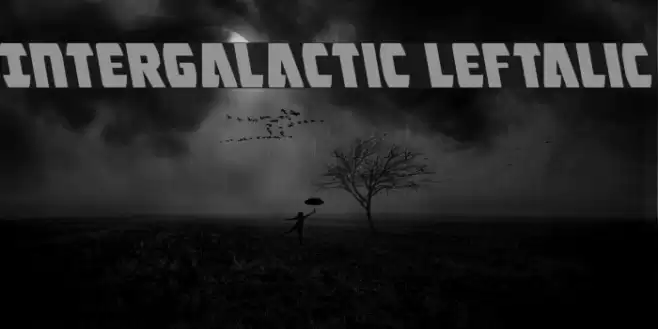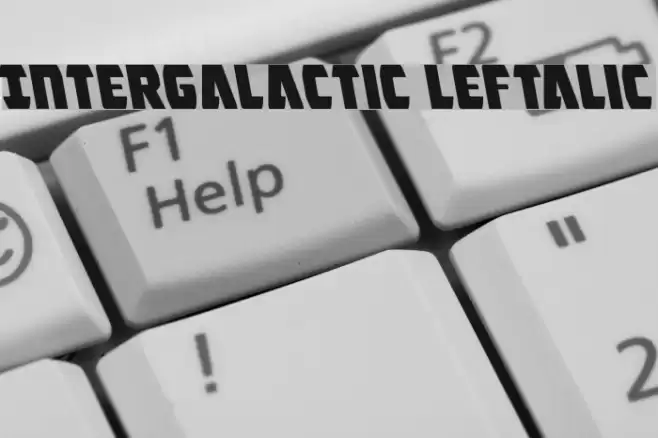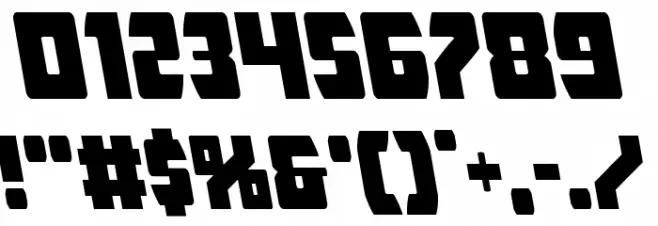
Intergalactic Leftalic Font
Intergalactic Leftalic Description
This font features a bold, futuristic design with a distinct leftward slant, giving it a dynamic and forward-moving appearance. The characters are blocky and geometric, with sharp angles and a strong presence. The uppercase and lowercase letters maintain a consistent style, while the numbers and special characters complement the overall aesthetic. The font's unique style makes it stand out, ideal for projects that require a modern and edgy look.
A bold, futuristic font with a leftward slant and geometric design from Uncategorized fonts.
- Proposed Projects: Ideal for sci-fi themed posters, video game titles, and tech branding.